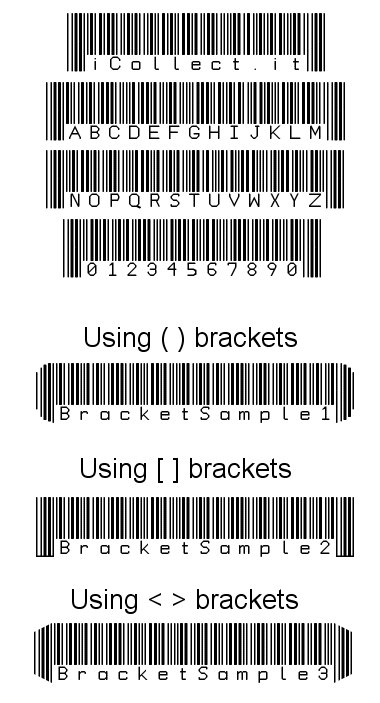
• iCollect.it®️ is a barcode (and text) version of the "Code 39 Barcode Specification" which can be read by most modern barcode scanners. I added lowercase characters for more readable labels even though they scan as uppercase. *Notes: Use an underscore instead of a space (as space characters are always blank in a fontstruct). Place an asterisk before and after your string for it to be recognised by barcode readers. Additionally, bracket pairs can be used for more stylish ends for labels etc: () [] <> See the examples. Happy scanning! As of Dec 2022, iCollect.it is a registered trademark of iCollect.it Ltd (UK).
This font can be used to create barcode stickers and labels that can be read by most modern barcode readers (those capable of reading Code 39 barcodes, which is most of them). Any sequence of characters and numbers should start and end with either the asterisk (*) or the bracket pairs shown below.
Upper and lowercase characters are provided only for more readable labels as the actual Code 39 barcode standard has only uppercase barcodes (unless you use 2 character sequences which look naff on labels). This way the machine sees all uppercase, but you get more readable labels.
Love numbers, love bars, love codes, love barcodes. Love it.
Great barcode font!
Anywho. Really cool and useful for me as I work in graphics for packaging. :)
Wonderful barcode font. As always, I hate to see troll votes ruining the spirit of this site. You've created, and gave us something very useful for free, and people ought to respect that. And most of us do. Your font gets my 10/10 rating and joins the list of My Faves.
After 8 years, nobody else noticed that the lowercase "b" and "d" both scanned as an "A". I just now spotted that problem when scanning new barcode labels (Cards scanned as CARAS instead of CARDS). I have just now corrected the 2 incorrect characters. My apologies... but after 8 years it's time to update your iCollect.it font :)